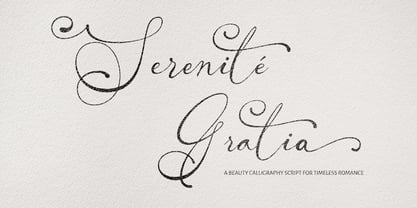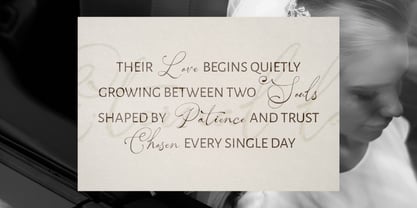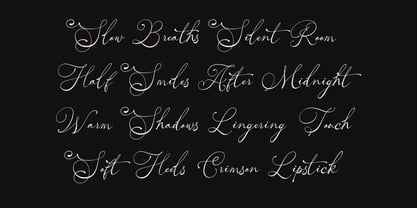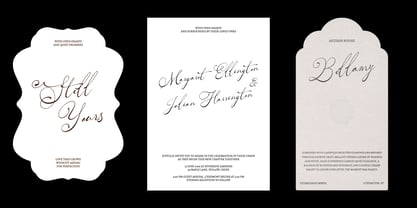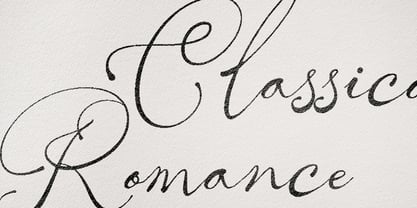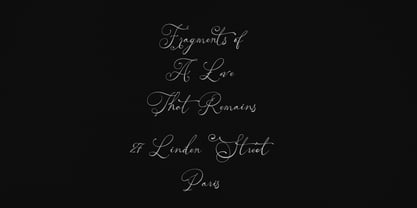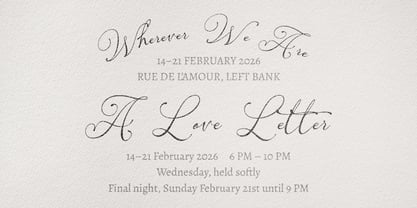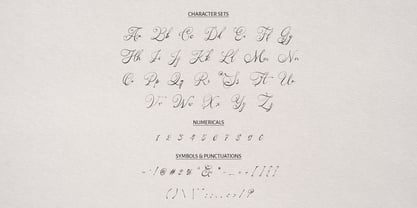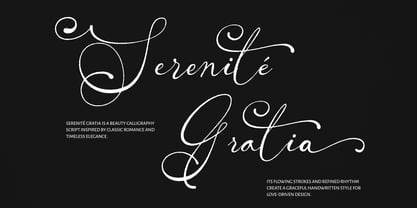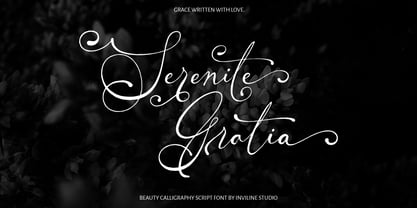
Serenité Gratia
by Inviline
The Serenité Gratia Font Family was designed by Virgiawan Listanto and published by Inviline. Serenité Gratia contains 1 styles. More about this family
Sérénité Gratia is a stunning beauty calligraphy script font that draws inspiration from classic romance and timeless elegance. Its refined curves and gentle strokes create a graceful, handwritten style, adding an organic and personal touch to your projects. This font is perfect for crafting invitations, branding, editorial design, and more, radiating sophistication and warmth that makes every word feel intimate. Whether used for wedding invitations, logo designs, or other love-driven projects, Sérénité Gratia elevates your typography with a refined and luxurious appearance that captures attention through its fluid rhythm. The font features a comprehensive set of uppercase and lowercase characters, numerals, and symbols to meet all your creative needs, ensuring your designs are both expressive and versatile. What You Get: Sérénité Gratia Typeface includes full uppercase and lowercase characters, numerals and symbols, punctuation, and special characters for diverse typographic flexibility. Perfect For: Wedding invitations, elegant branding and logo designs, editorial layouts and magazine headings, personal stationery, custom signatures, and monograms.
Designers: Virgiawan Listanto
Foundry: Inviline